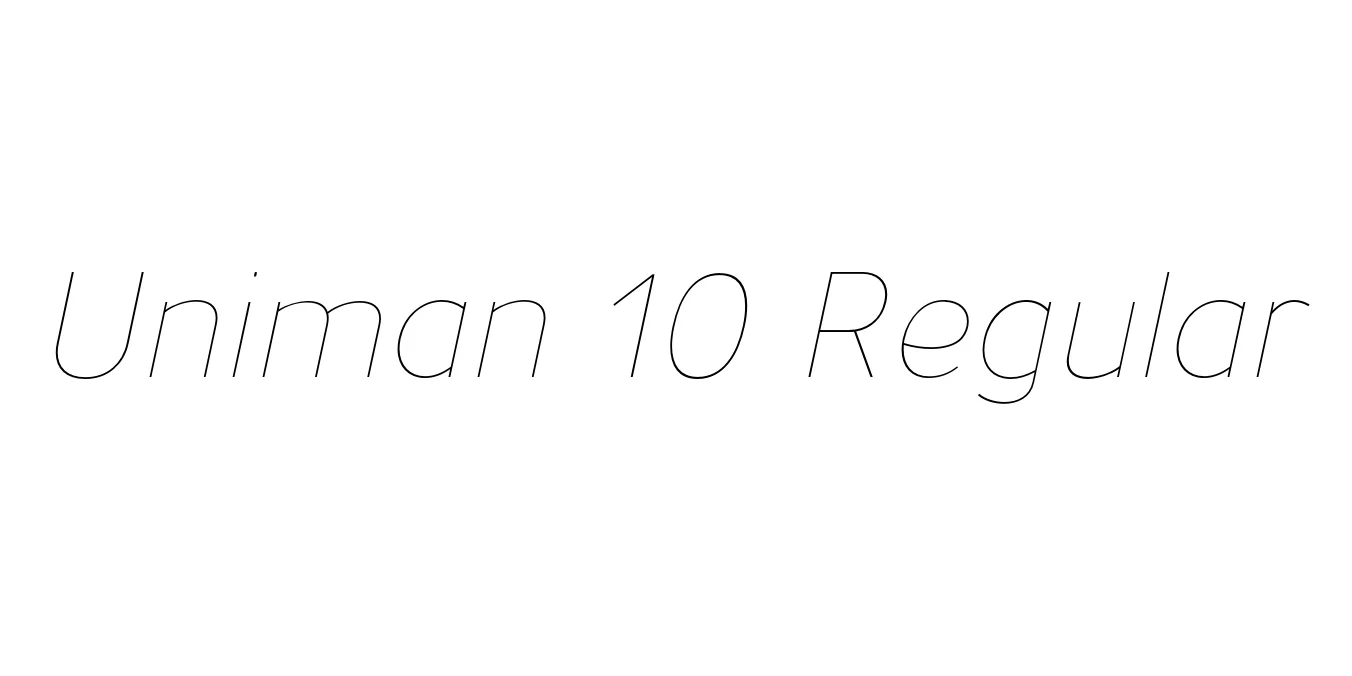
Uniman 10 Regular
Designed by Ricardo Marcin & Erica Jung (PintassilgoPrints)
Uniman 10 Regular is a distinguished member of the Uniman font family, a versatile monolinear sans-serif designed with a focus on friendly accessibility and geometric clarity. Developed by the creative duo at PintassilgoPrints, this typeface bridges the gap between cold industrial sans-serifs and warmer, more humanistic lettering. Its balanced proportions and consistent stroke weights ensure that it remains highly readable across various resolutions, making it a reliable tool for modern graphic designers.
The design features subtly rounded terminals and open counters, which lend a soft, welcoming aesthetic to any layout. While it draws inspiration from mid-century vernacular design, Uniman 10 Regular is thoroughly modernized for contemporary use in digital interfaces and high-end print production. It excels in environments where a professional yet approachable tone is required, providing a refreshing alternative to standard system fonts.
Ideal for creating friendly and professional corporate identities.
Clean lines and open apertures make it perfect for body text and navigation menus.
Great for promotional banners and social media assets that require a modern touch.